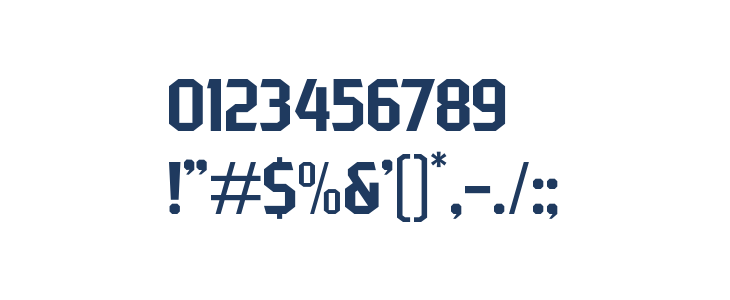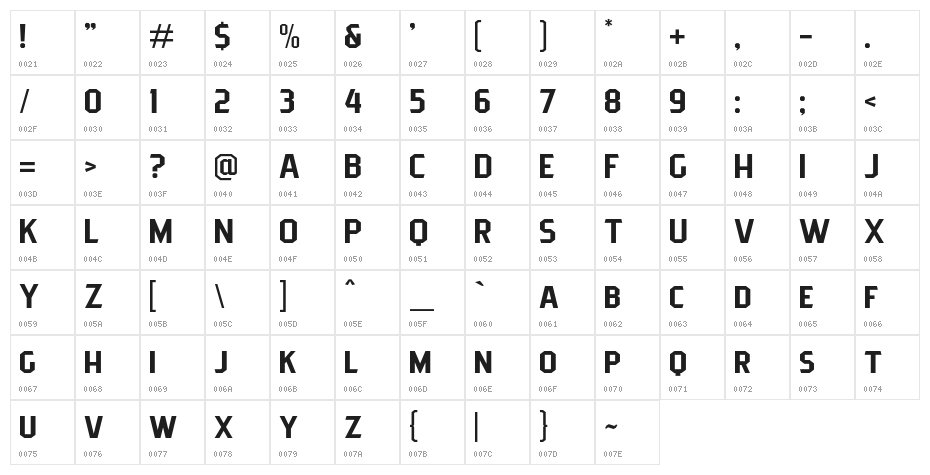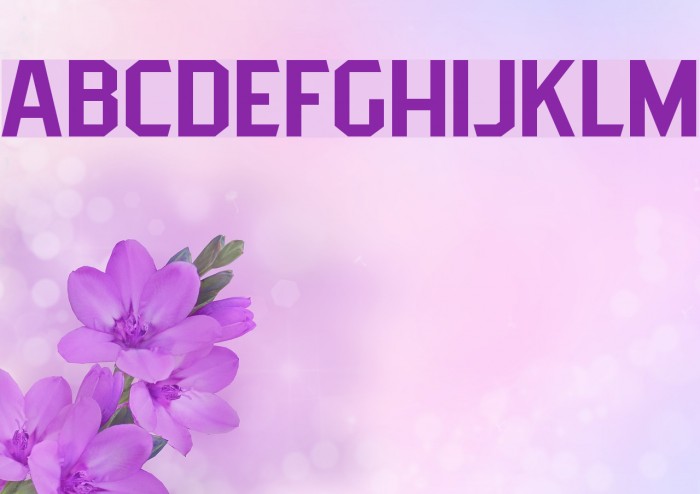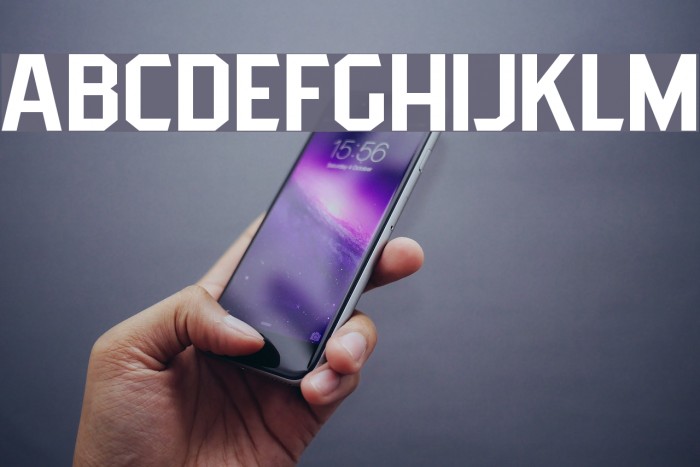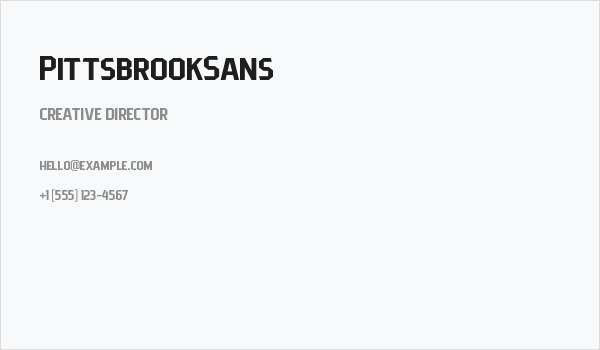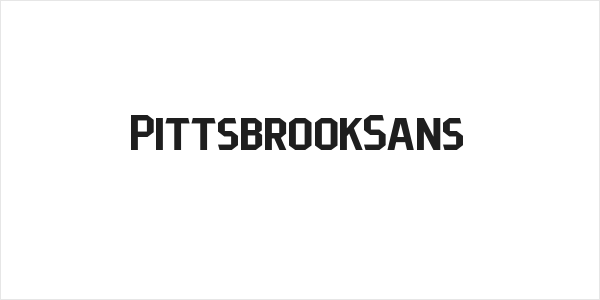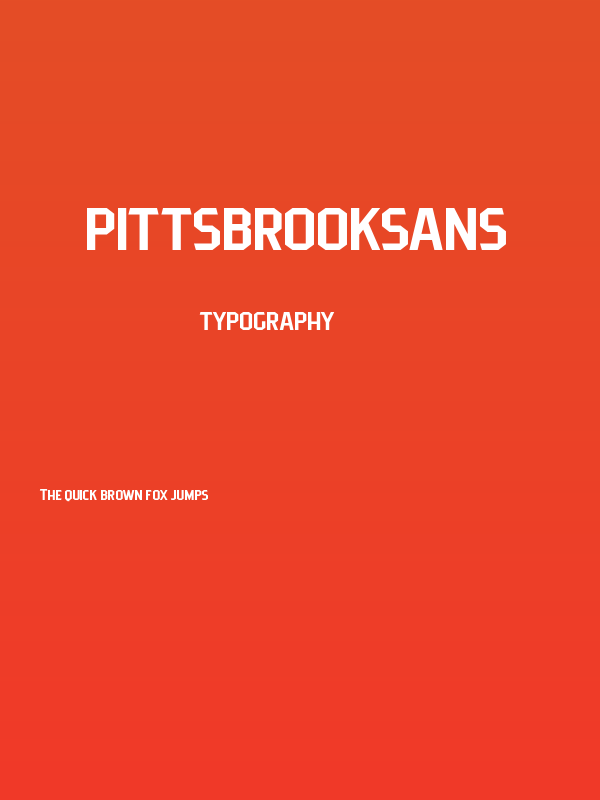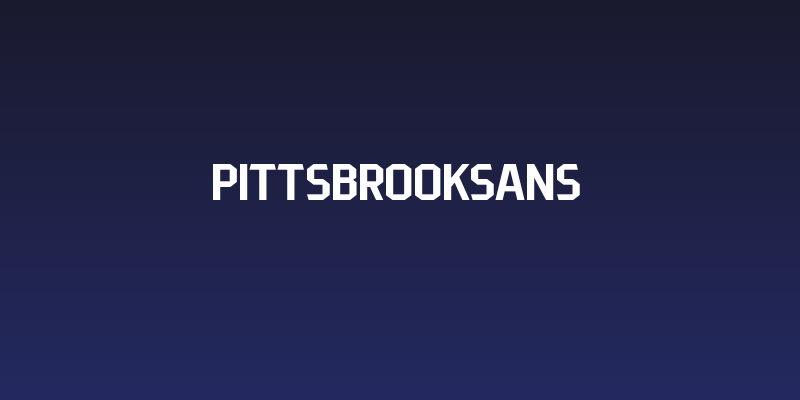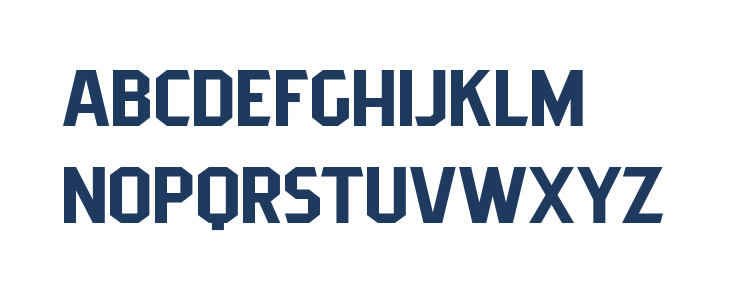
PittsbrookSans Font
PittsbrookSans Description
This font features a bold, geometric design with strong, angular lines and a modern aesthetic. The uppercase letters are uniform in height, creating a cohesive and structured appearance. The numerals and special characters maintain the same boldness, ensuring consistency across all characters. The font's design is clean and impactful, making it suitable for attention-grabbing headlines and titles. Its geometric nature gives it a contemporary feel, while the bold strokes add a sense of authority and presence.
Proposed ProjectsIdeal for branding, posters, headlines, and any project requiring a modern, impactful typeface.